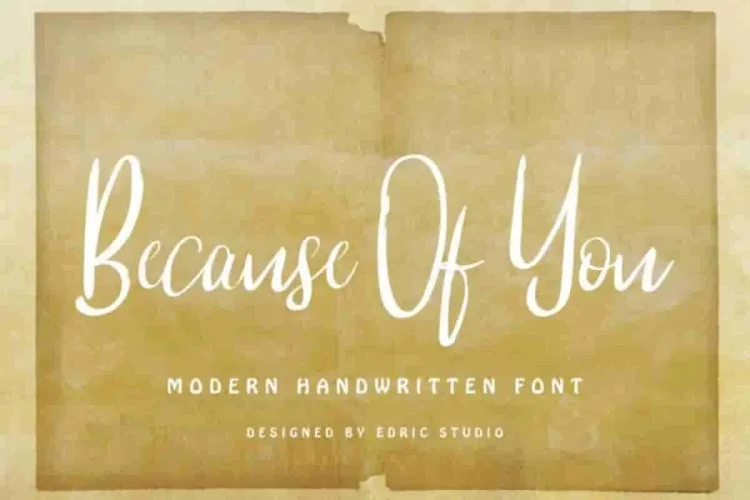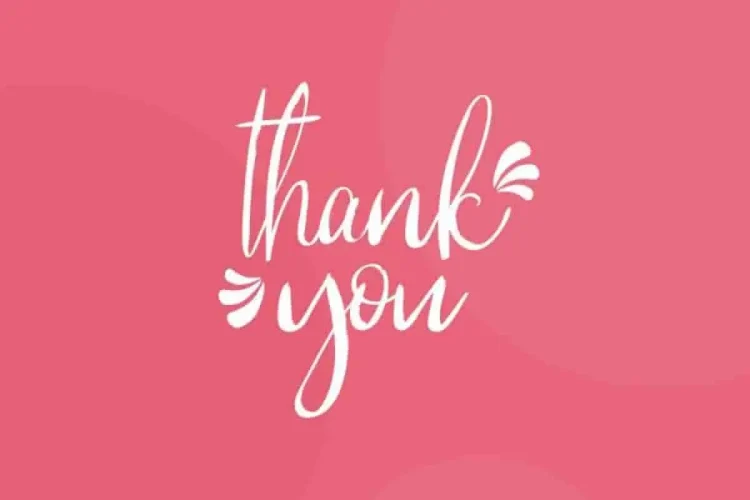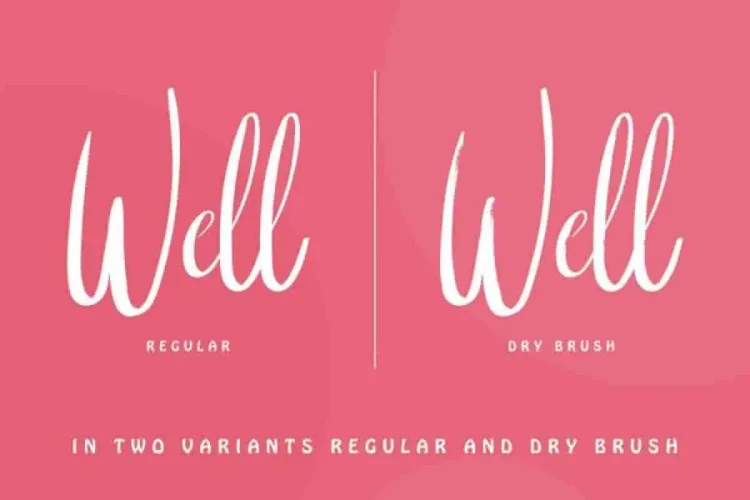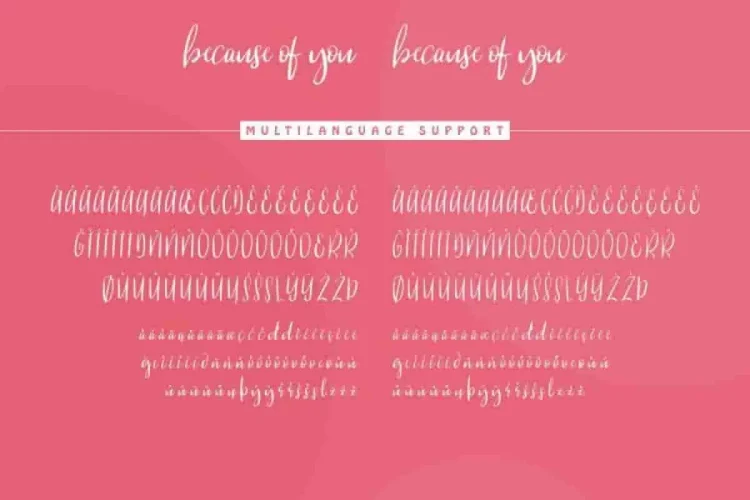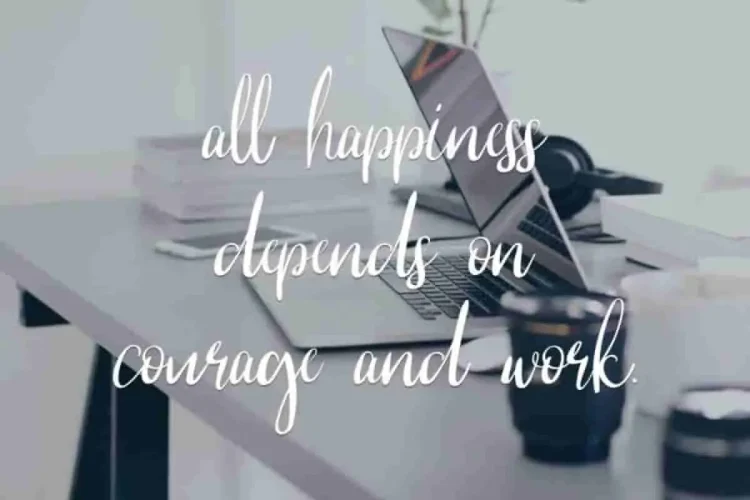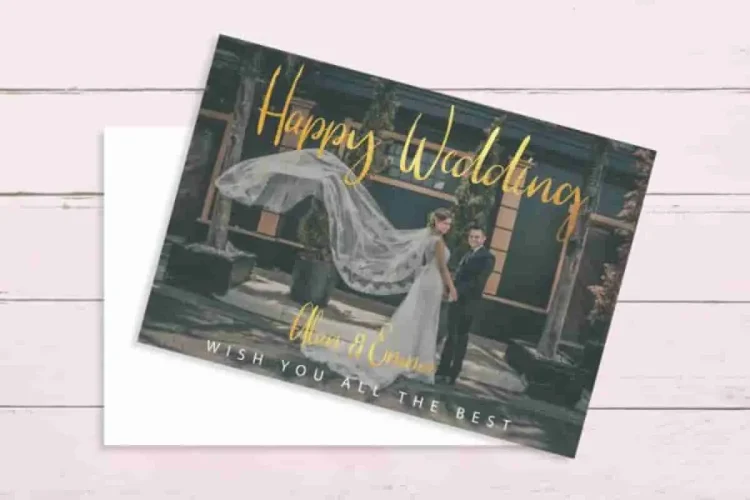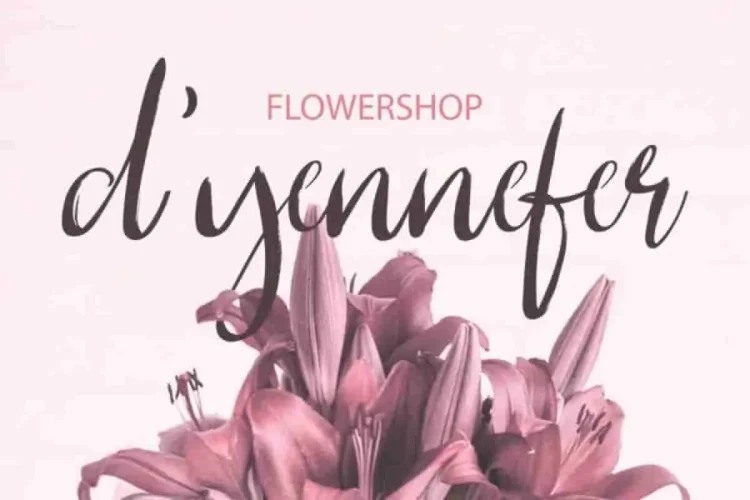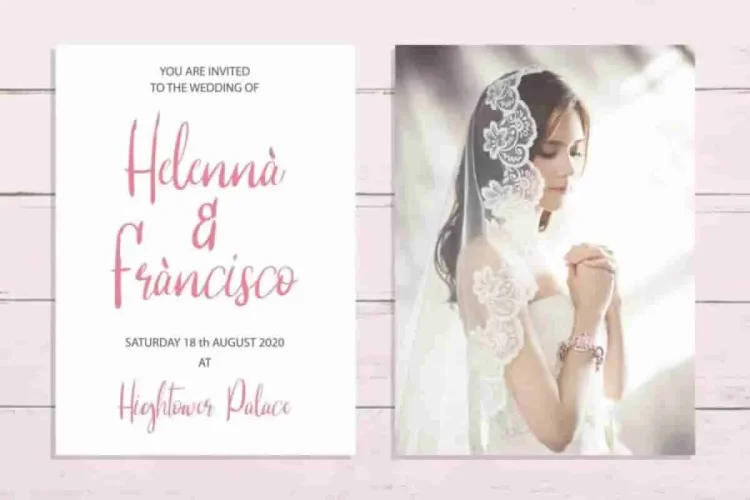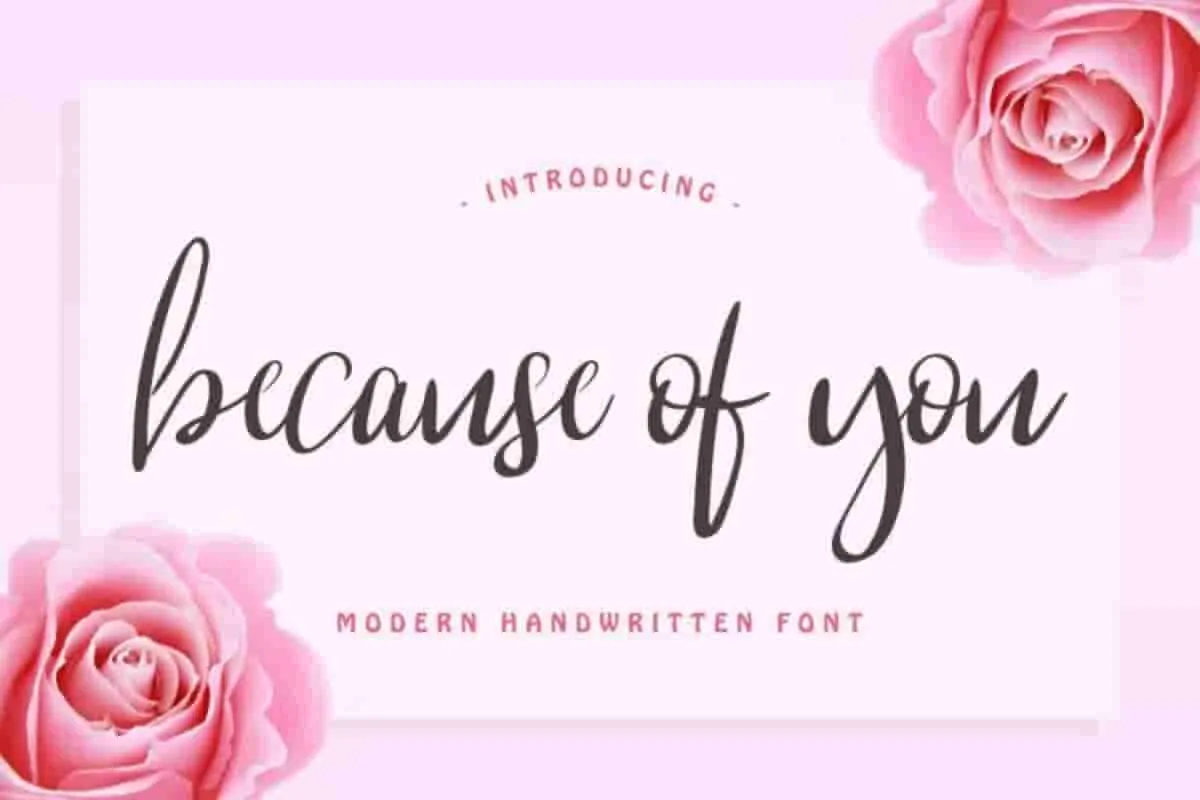
Because Of You Handwritting Font
Please meet our newest baby Because Of You Font
Made in Indonesia, Because Of You Font was crafted with love by our lovely artists.
Because Of You Font is a new decorative handwritten font with natural style. With its exclusive glyhps set, you can create unlimited stunning creative products/works.
Because Of You Font has two styles you can choose: Regular handwriting calligraphy and textured brush characters. It will be guaranteed great for branding, logotype, stationery, business card, signage, flyer, brochure etc.
Because Of You Font also support many multi-language characters